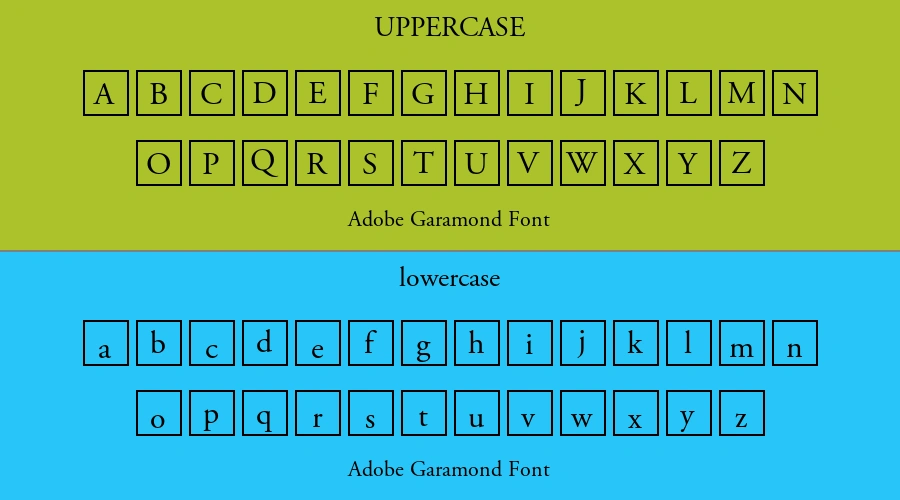
About Adobe Garamond Font
Adobe Garamond Font embodies typographic excellence through its masterful combination of impactful forms and system consistency. Created for wayfinding systems, this typeface delivers exceptional scalability and design innovation across all applications. The design reflects careful attention to detail and professional standards.
Advanced capabilities include distinctive measured spacing and versatile oldstyle figures, giving designers creative control. When used in certification marks, Adobe Garamond Font exhibits remarkable symbol integration. The harmonious balance between apex design and market position sets this typeface apart.